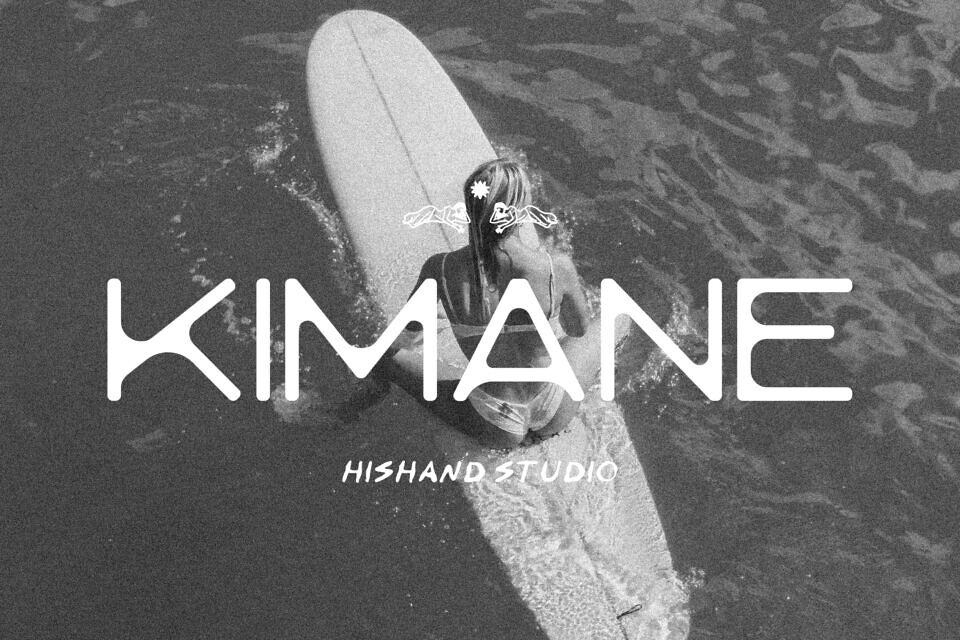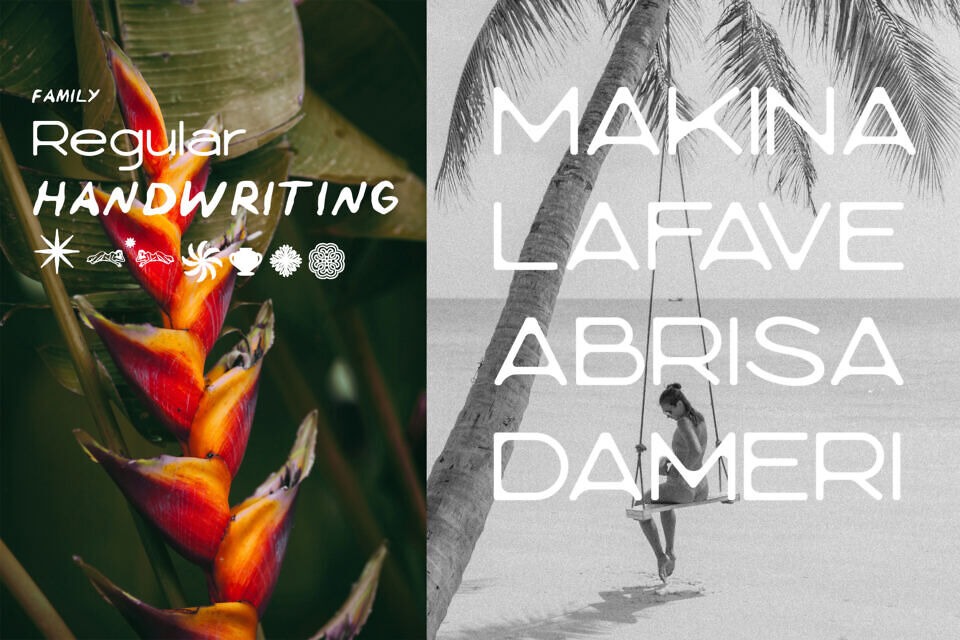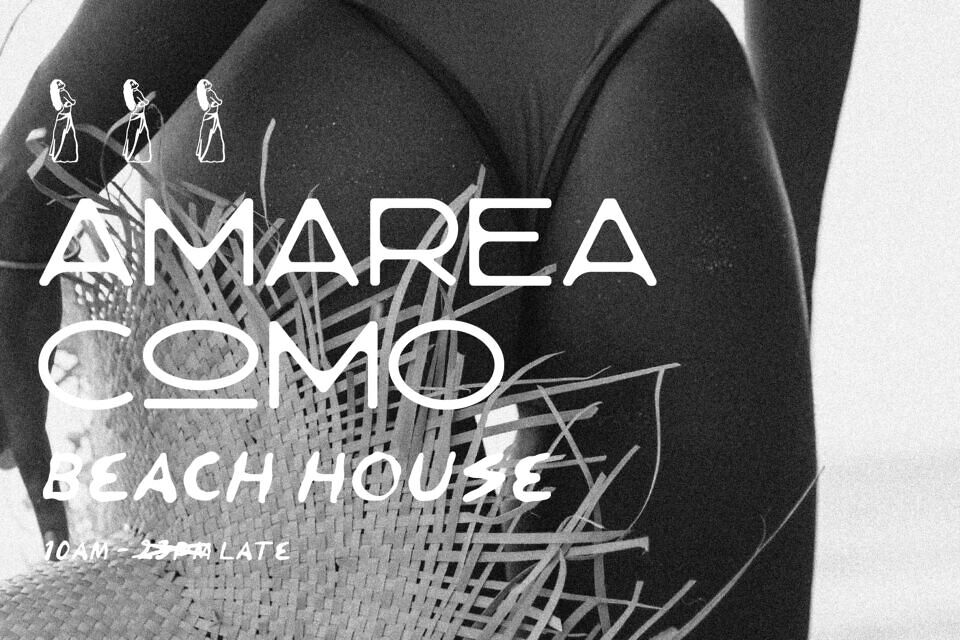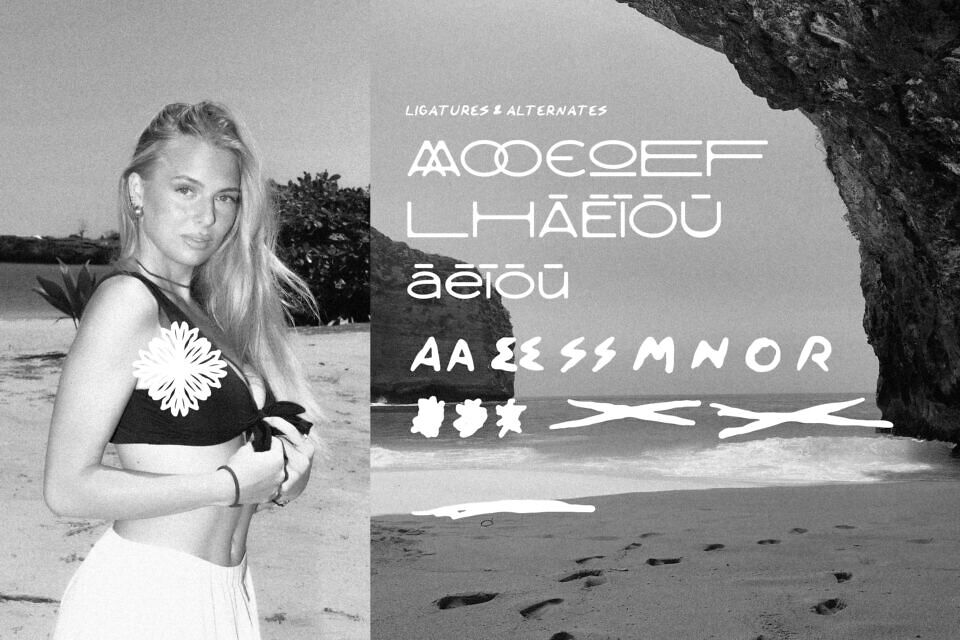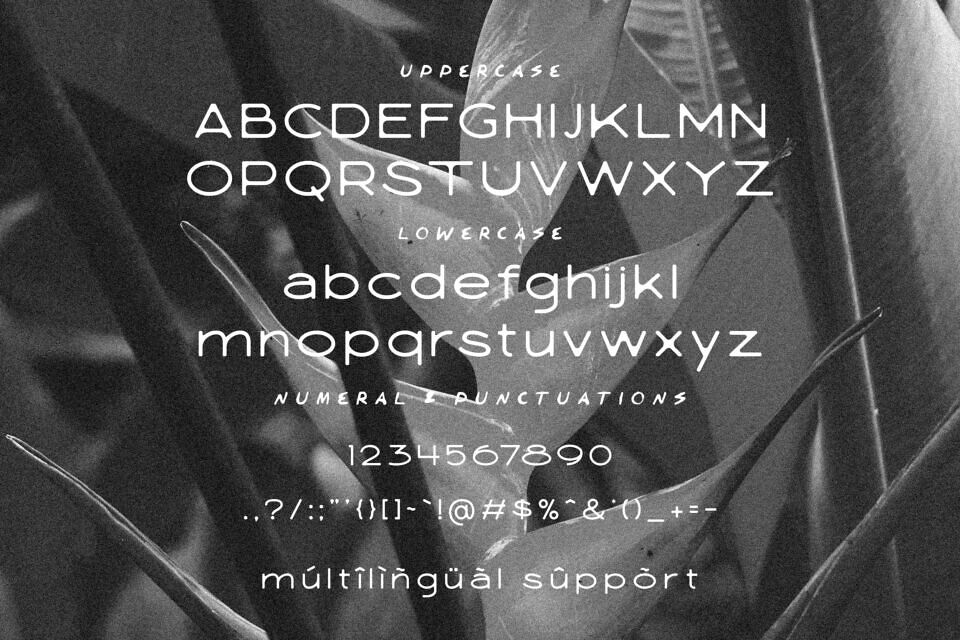
Kimane Font
The Kimane font duo combines a modern sans-serif with a tropical handwritten style, creating a clean and inviting look. The sans-serif features thin lines and curved edges, giving it a soft and approachable feel.
Paired with a handwritten script that captures the authenticity of natural handwriting, the duo adds a relaxed, organic touch. The script’s loose motion and legible style bring a personal, human element to the design, making it perfect for minimalist headlines and editorial layouts that value simplicity and white space.